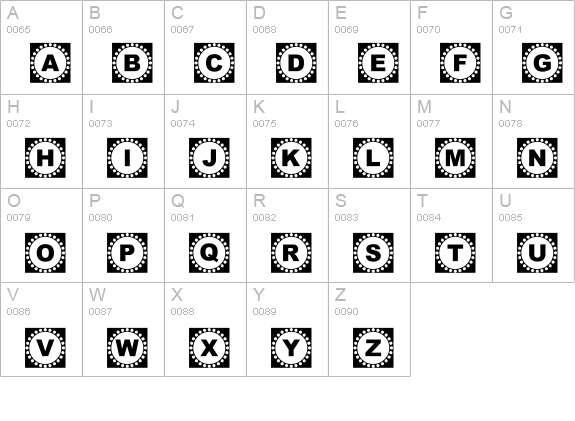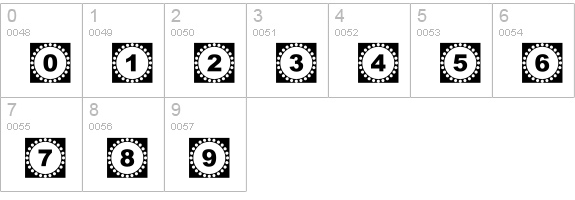
Introducing 4YEO OUT font, a bold and eye-catching typeface designed to make a statement in your projects. With its edgy and modern aesthetic, this font is perfect for creating attention-grabbing headlines, posters, logos, and more. The unique design of 4YEO OUT font exudes a sense of creativity and innovation, making it ideal for projects that require a touch of originality. What sets 4YEO OUT font apart is not only its striking appearance but also the fact that it is available for free download at FontsMarket.com. Yes, you read that right - this stylish font can be yours without any cost, allowing you to elevate your designs without breaking the bank. Whether you're a seasoned designer looking to add a fresh element to your work or a newcomer eager to experiment with typography, 4YEO OUT font is the perfect choice. Don't miss out on the opportunity to enhance your creative projects with the distinctiveness of 4YEO OUT font. Download it for free today and let your imagination run wild!